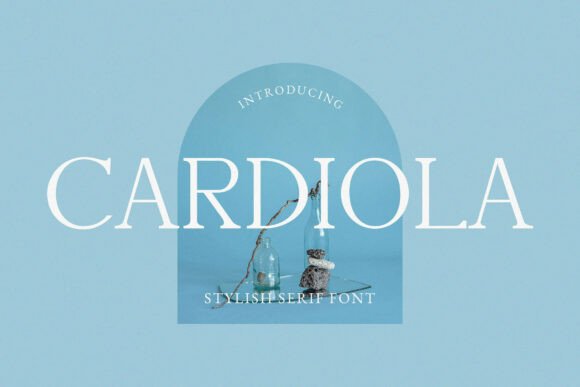
The Elegance of Cardiola Font: A Designer’s New Best Friend
I’ll never forget the time I was working on a wedding invitation project, and my client asked for a font that was both elegant and bold. I scoured the internet, tried out countless fonts, but nothing seemed quite right. That was until I stumbled upon Cardiola Font. ✨ It was love at first sight! The incredibly versatile style of Cardiola has since become a staple in my design toolkit, and I’m excited to share its beauty with you.
An Honest Review of Cardiola Font
- ✨ Elegant and bold serif design that’s perfect for making a statement
- ✅ Incredibly versatile style that works well for various design projects
- 💕 Beautifully crafted to evoke a sense of luxury and sophistication
- 📚 Supports multiple languages and OpenType features
While Cardiola Font is an amazing addition to any design project, there are a few things to keep in mind: 🤔
- ⚠️ Some users may find the font a bit too bold for certain applications
- ⚠️ Limited availability of certain stylistic alternates in non-OpenType supporting software
The Backstory of Cardiola Font
While the origins of Cardiola Font may be shrouded in mystery, it’s clear that the designer was inspired by the elegance and sophistication of classic serif fonts. 💫 The result is a font that’s both timeless and modern, perfect for a wide range of design applications.
Q: What makes Cardiola Font so versatile?
A: Cardiola Font’s versatility comes from its elegant and bold serif design, making it suitable for various design projects, from wedding invitations to social media posts.
Q: Does Cardiola Font support OpenType features?
A: Yes, Cardiola Font supports OpenType features, allowing you to access a range of stylistic alternates, glyphs, and ligatures to enhance your design.